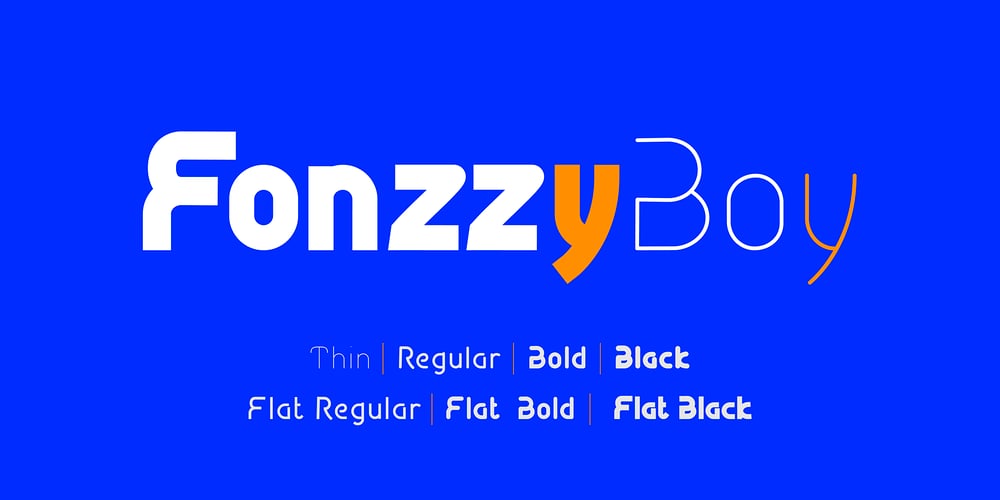
FonzzyBoy
FonzzyBoy font
FonzzyBoy Font Family was designed by JC Mehring and published by JC Creation Design. FonzzyBoy contains 7 styles and family package options. FonzzyBoy is a simple typography in two variations, based on a “U” shape inspired by Rockabilly hairstyles from the 50s/70s.